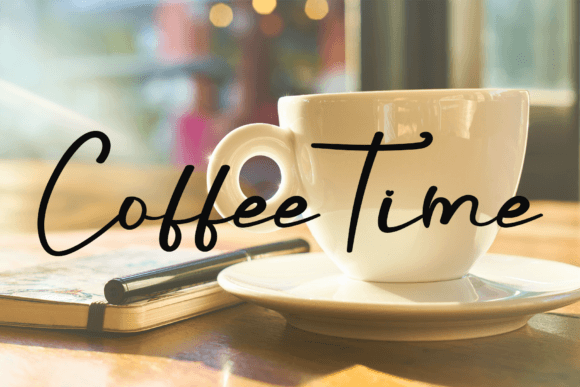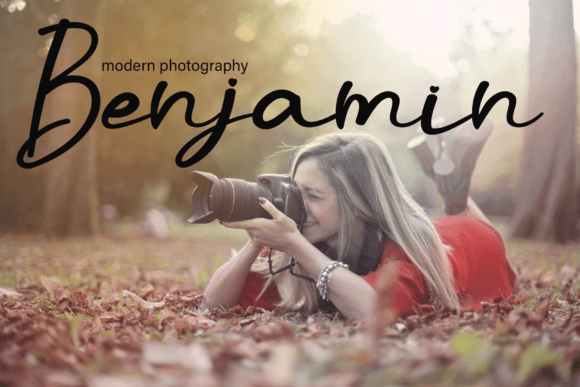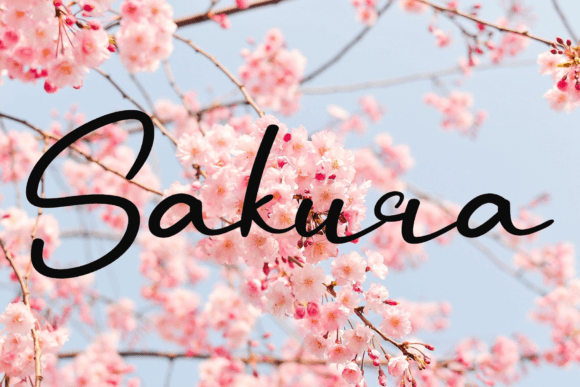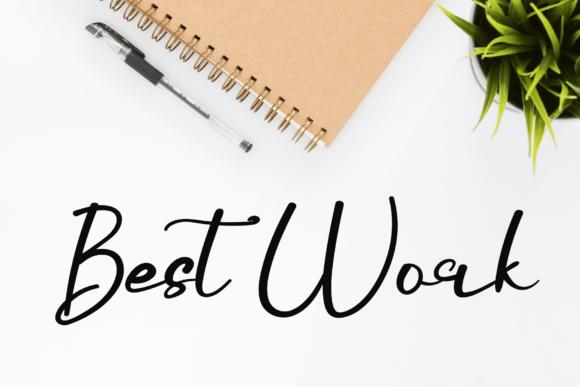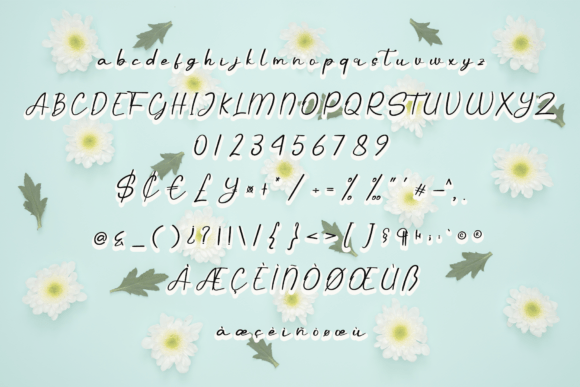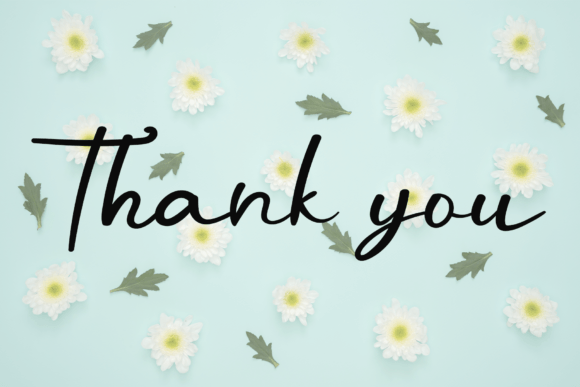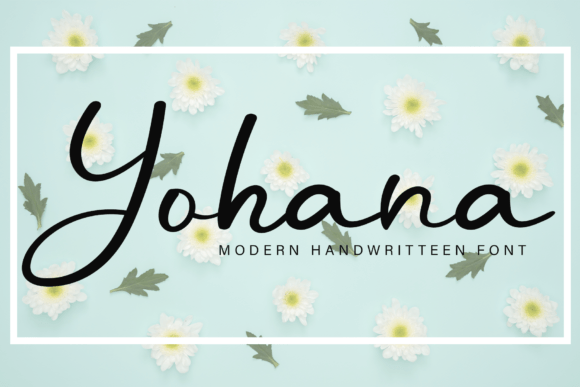
Yohana Font
About Yohana Font
Introducing Yohana, a fun and friendly handwritten font designed to bring a unique charm to your creative projects. This font is crafted to stand out and turn any design idea into a true standout. With its playful and inviting style, Yohana inspires creativity and lends a lovely touch to your designs.
The fun and friendly nature of Yohana makes it suitable for a variety of applications. Imagine using it on greeting cards, invitations, or any design that calls for a personalized and welcoming feel. Picture Yohana in digital designs, where its unique charm adds a touch of playfulness to your creations.